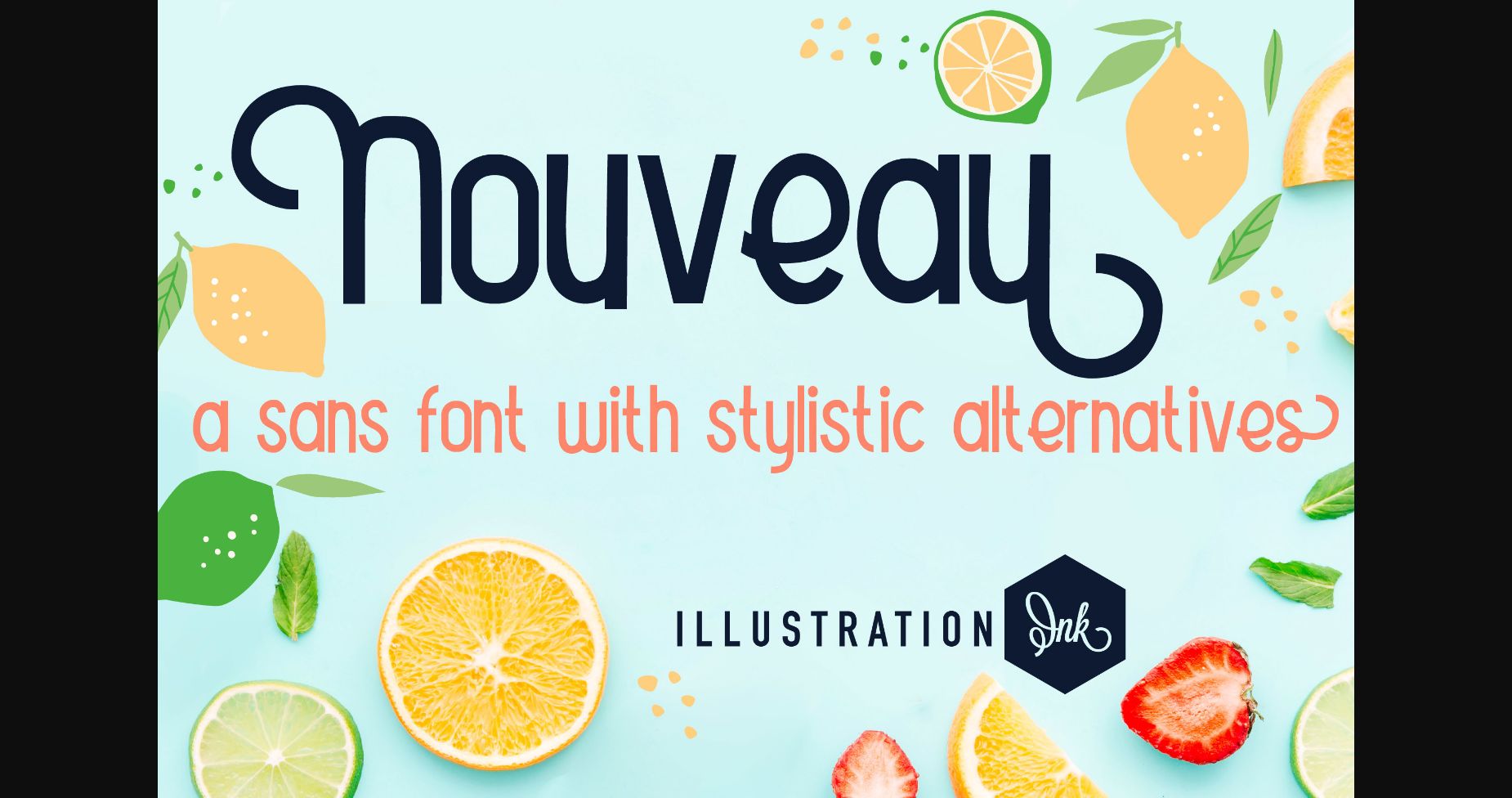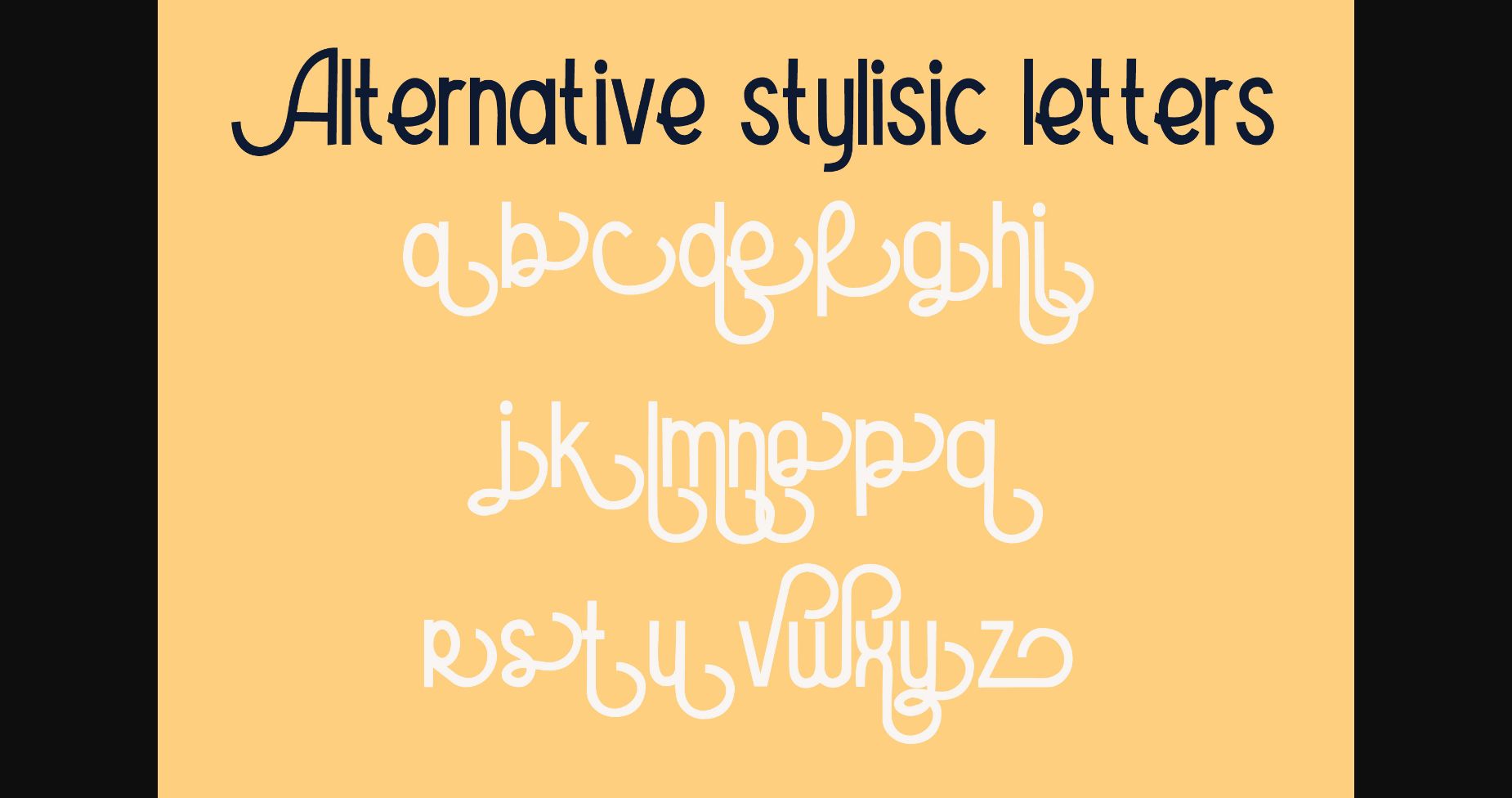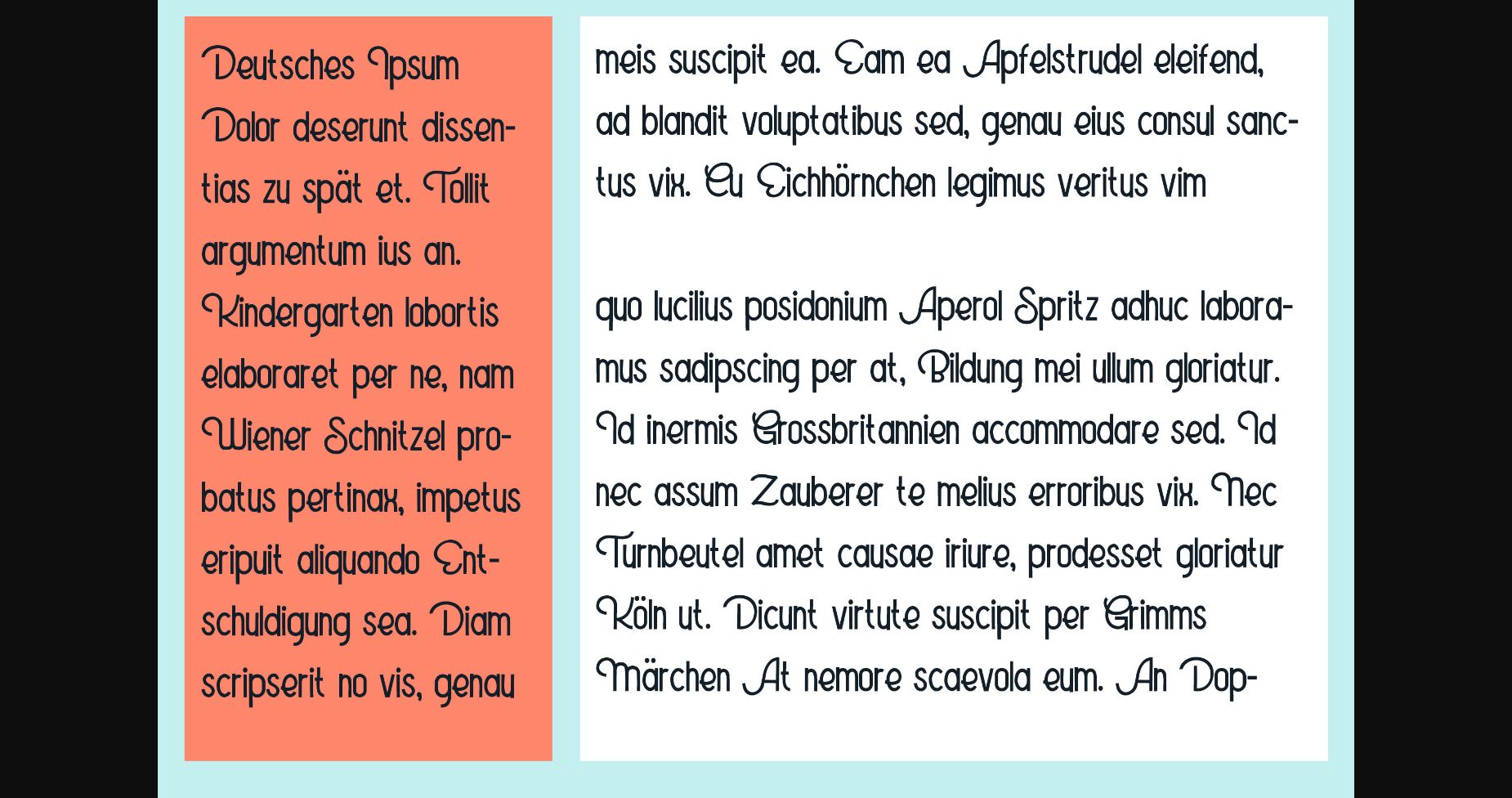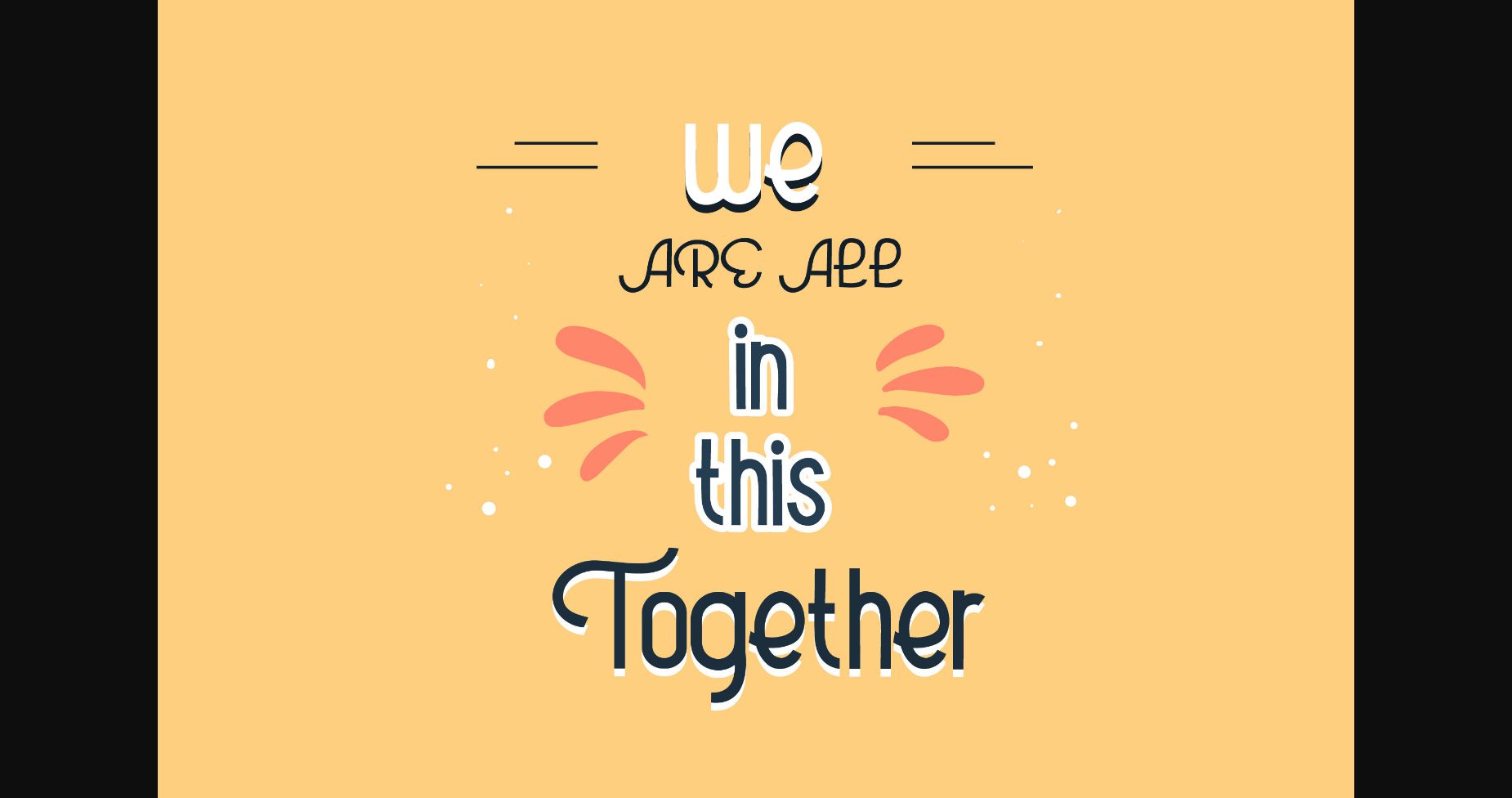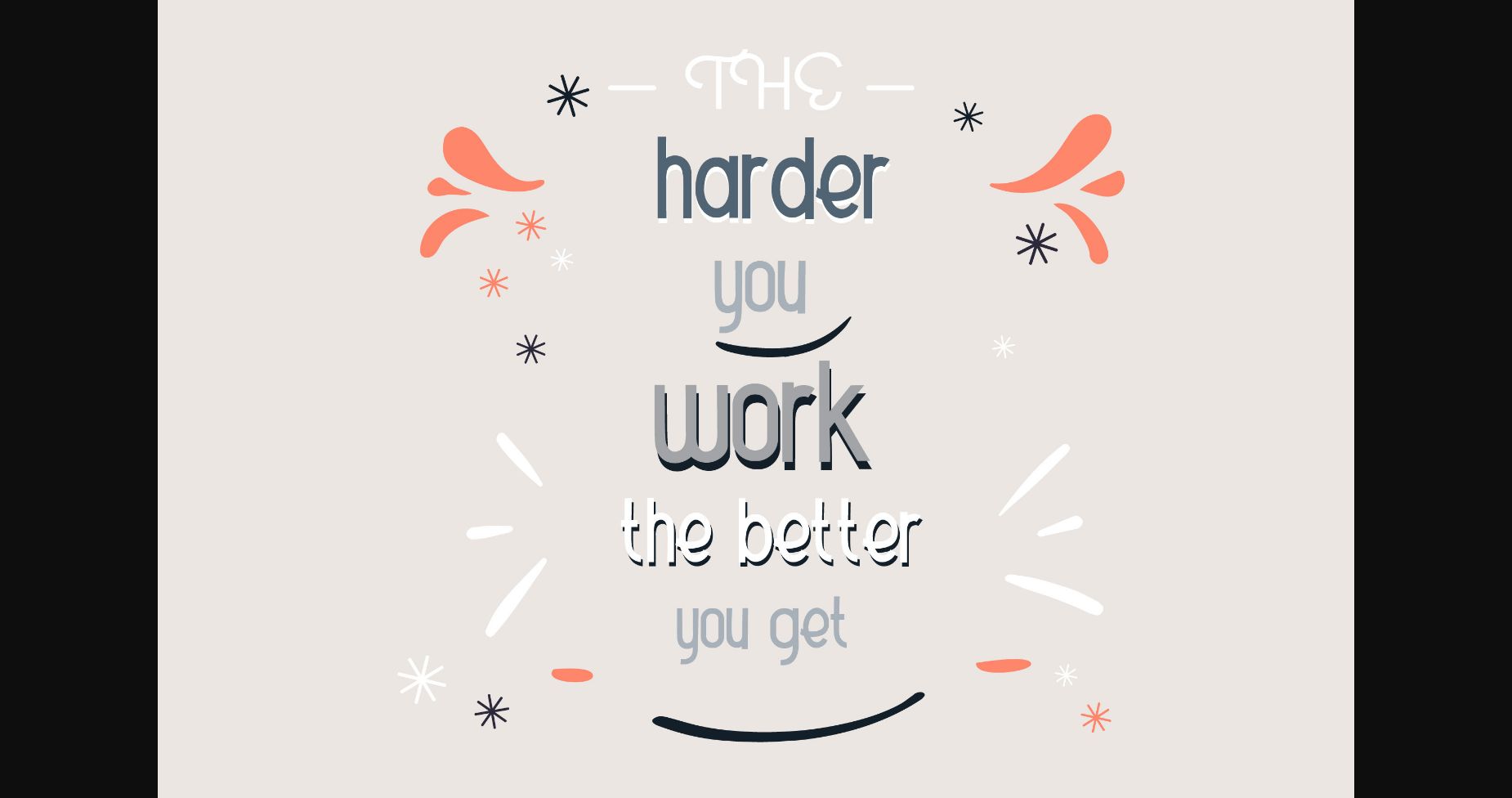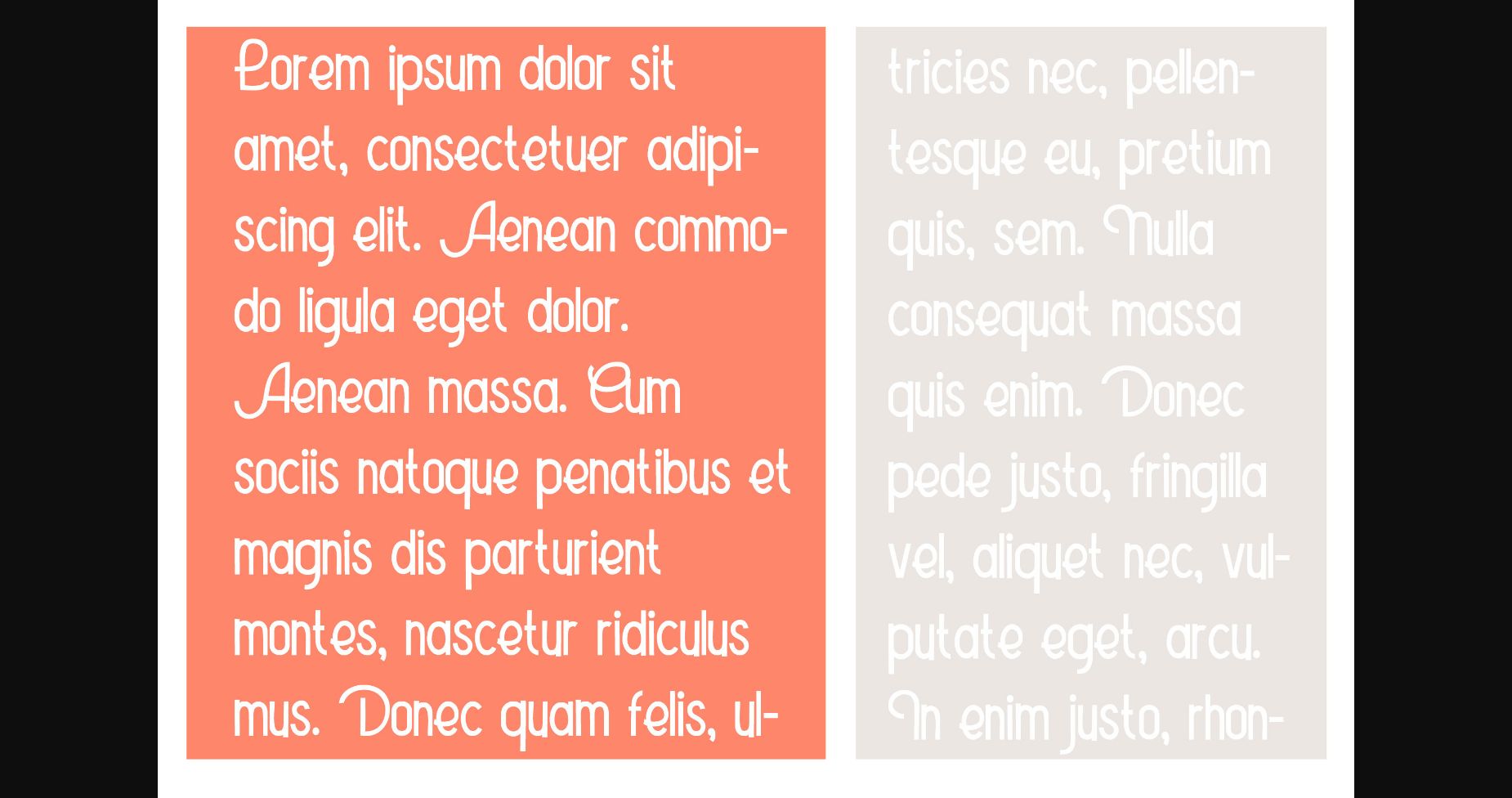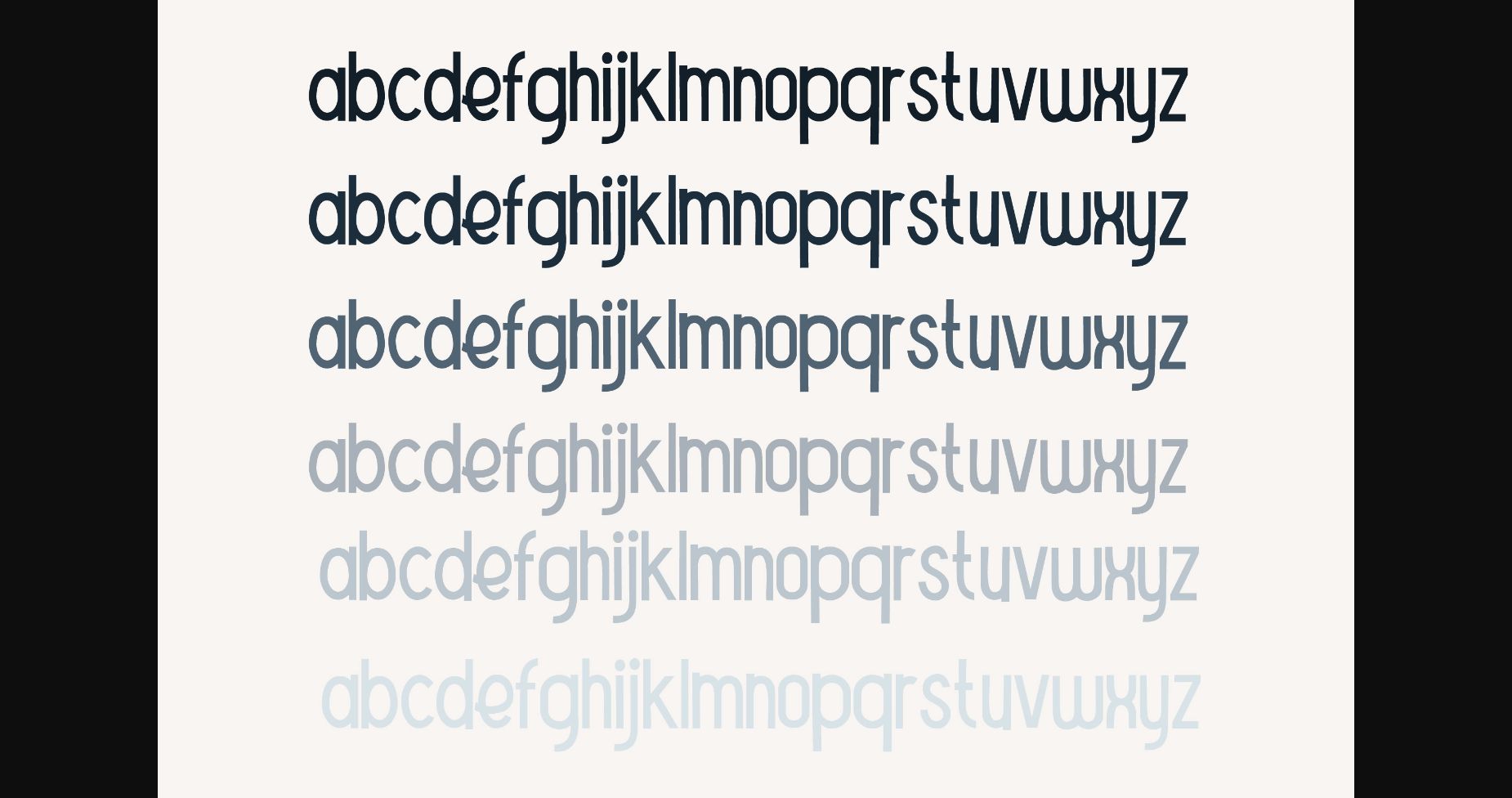
This hand-crafted sans serif font has an alt case available with flourished stylistic alternatives. Add this beautiful and unique font to each of your creative ideas and notice how it makes them stand out!